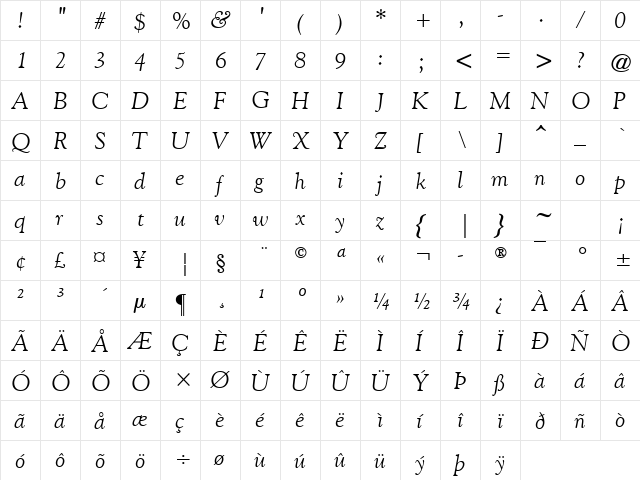
Goudy Old Style ATT Italic
Design Context for Goudy Old Style ATT Typeface
Goudy Old Style ATT is a composed and adaptable typeface that performs quietly and consistently across a wide range of design contexts. Its italic angle brings a sense of urgency and motion to the letterforms.
Pro Tip: Try Goudy Old Style ATT for annotation and caption copy alongside an upright companion — the contrast in angle creates a dynamic but ordered typographic system.